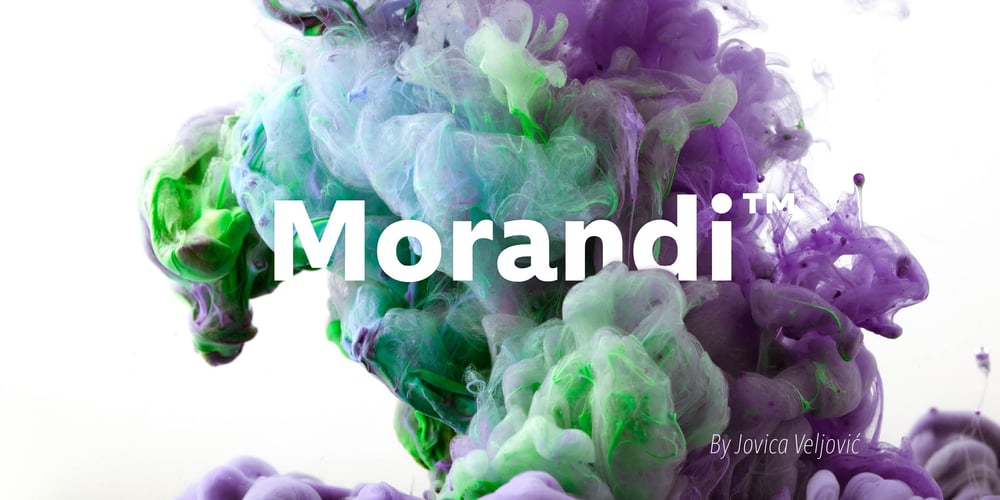
Morandi Font Family was designed by Jovica Veljovic and published by Monotype. Morandi contains 48 styles and family package options. Morandi is the first commercial sans serif font created by Jovica Veljović – a much-awarded designer who’s been creating typefaces for over thirty years. The product of years of crafting letterforms, Morandi is supremely graceful. Each detail has been carefully refined for legibility, with open counters and generous apertures, and the bottom of round strokes slightly flattened. Not just elegant in appearance, Morandi is an efficient design, versatile enough to work in print and digital environments, including on-screen applications. The family offers three weight ranges and includes a large multi-national character set – making it a practical choice, as well as an aesthetic one.